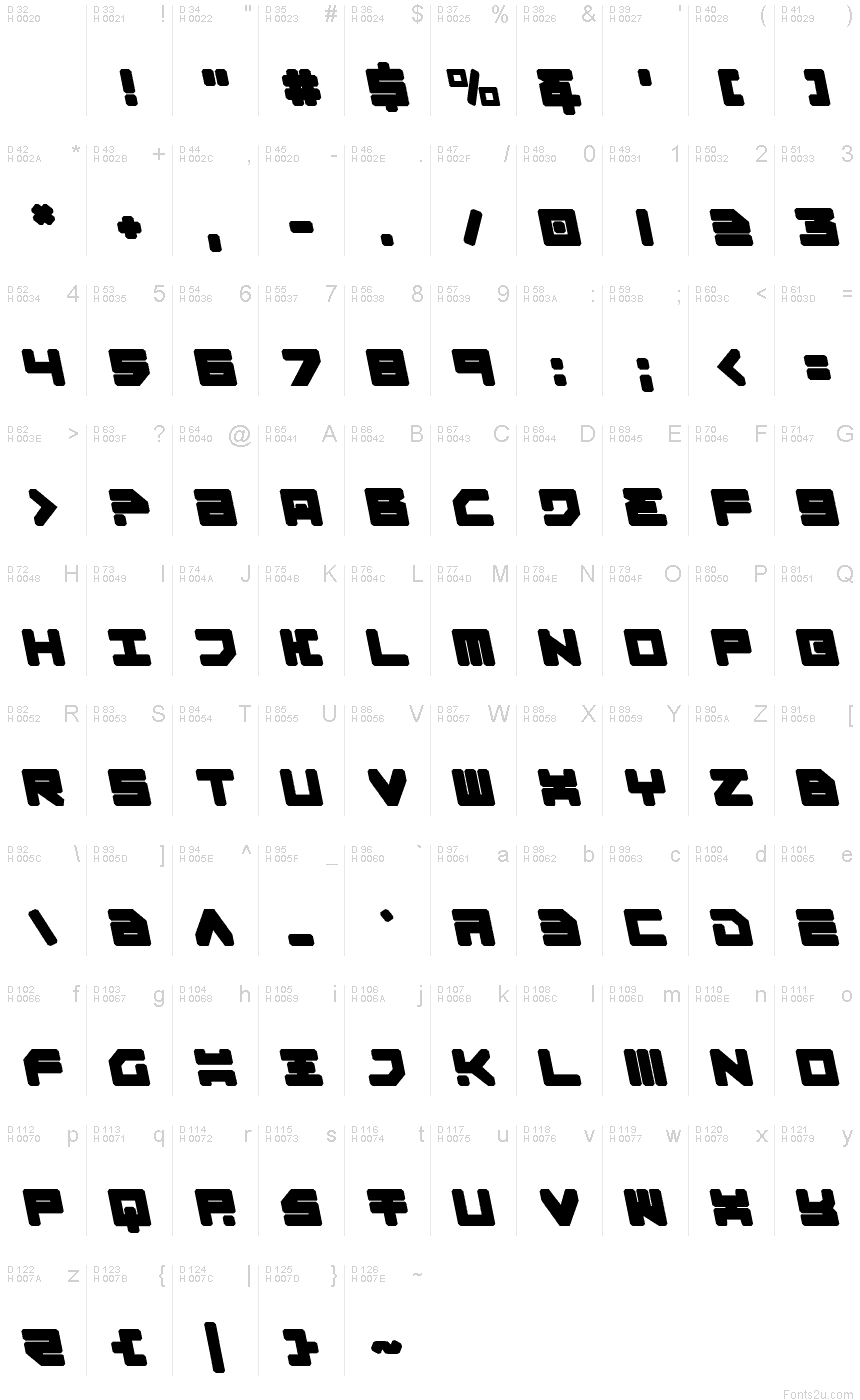
Omega-3 Leftalic by Iconian Fonts is a free futuristic display font with massive, tightly fitted capitals and a hard mechanical silhouette. Angular cuts, clipped corners, and narrow horizontal openings break up the dense strokes and make the forms resemble armor plating or machine parts.
For audiences drawn to science fiction and arcade culture, it suits game title cards and esports branding. The broad shapes also fit electronic album covers and technology event posters, where the lettering can match forceful imagery. In a game interface or fictional vehicle graphic, the notched forms can become part of a control panel, badge, or warning sign instead of neutral text.
Omega-3 Leftalic